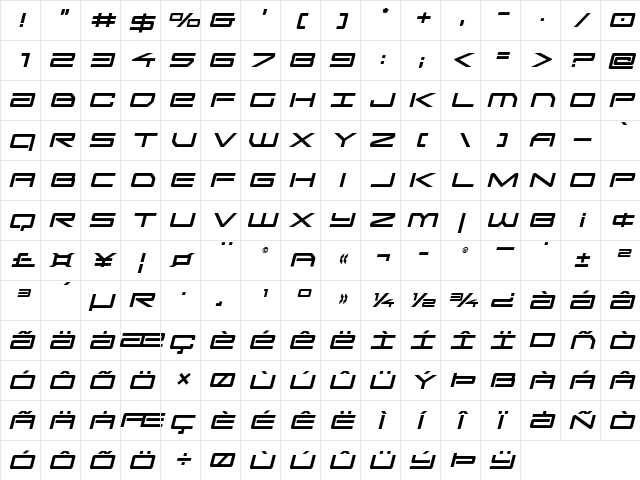
Sky Ridge Title Italic Regular
Design Context for Sky Ridge Title Italic Typeface
Sky Ridge Title Italic is a composed and adaptable typeface that performs quietly and consistently across a wide range of design contexts. The dynamic lean of this cut emphasises speed and emphasis in any layout.
Pro Tip: Try Sky Ridge Title Italic for annotation and caption copy alongside an upright companion — the contrast in angle creates a dynamic but ordered typographic system.